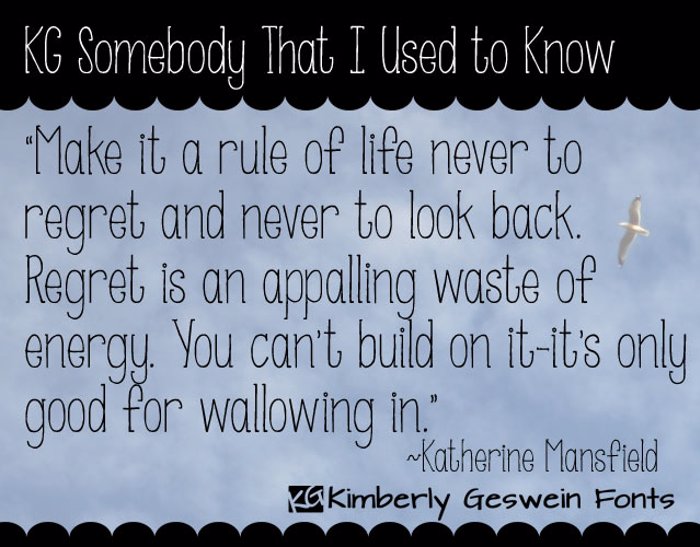
KG Somebody That I Used to Know Font
This roughed up hand-drawn typewriter-inspired font is easy to read but has some quirky character. Please donate if you use it commercially!
I super love this font. It's awesome. The shape of the letters are the best (the letters a,y, for example, i love these)